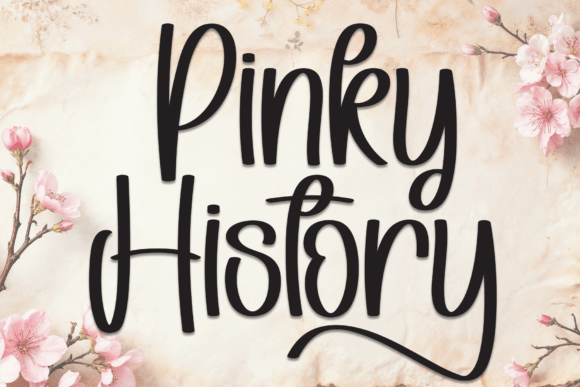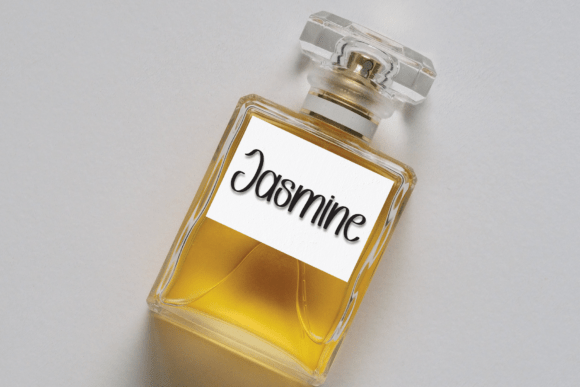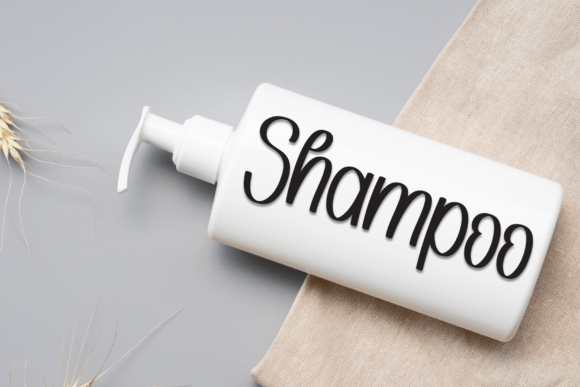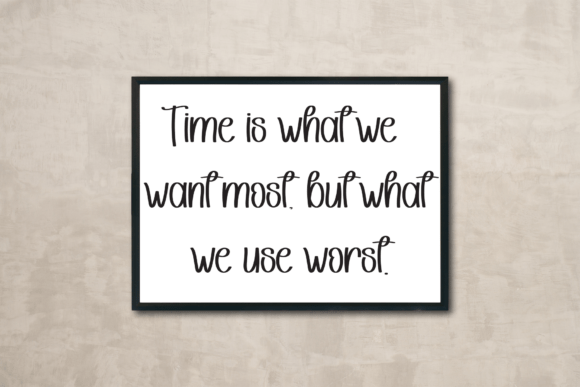
Pinky History Font
About the Pinky History Font
Discover the charm of Pinky History Font. This font is a perfect blend of modern aesthetics and classic appeal. Pinky History is a stylish handwritten script font that combines elegance with a modern flair. Its flowing strokes and organic curves bring warmth and sophistication to any project. Ideal for branding, invitations, and social media, this typeface adds a personal, refined touch with effortless charm.
Pinky History Font excels in applications requiring a touch of refined elegance, such as logos, short headlines, and invitations. Its stylish nature makes it perfect for branding projects aiming for a sophisticated yet approachable feel, particularly within fashion, beauty, or lifestyle sectors. Avoid using it for large blocks of text or body copy; its script nature makes readability challenging in extended passages.
The font possesses a sophisticated and friendly personality. Its gentle curves and flowing strokes convey warmth and approachability without sacrificing elegance. This makes it a versatile choice for projects seeking a balance between style and approachability.
Pinky History Font Usage Examples
Pinky History Font Example